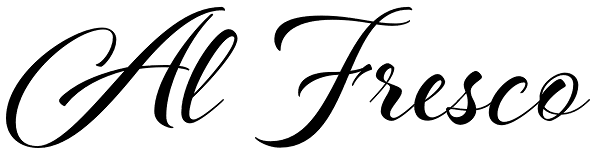
Al Fresco
Al Fresco is a breezy, light, yet expressive typeface perfect for packaging products and titling work that calls for a youthful, delectable flair. Its elegance carries a subtle earthiness; its beauty is unconventional, both stylish and exuberant. Al...
Al Fresco
Al Fresco Bold